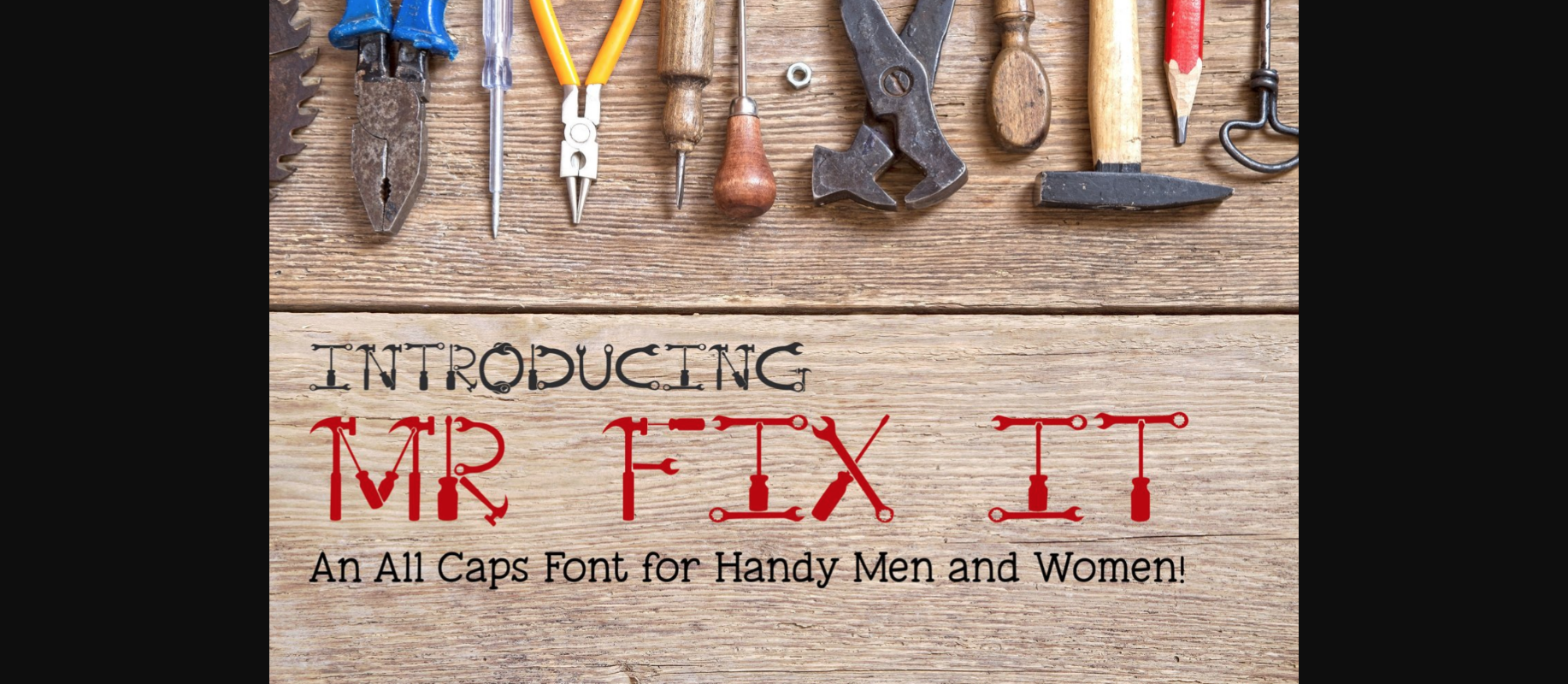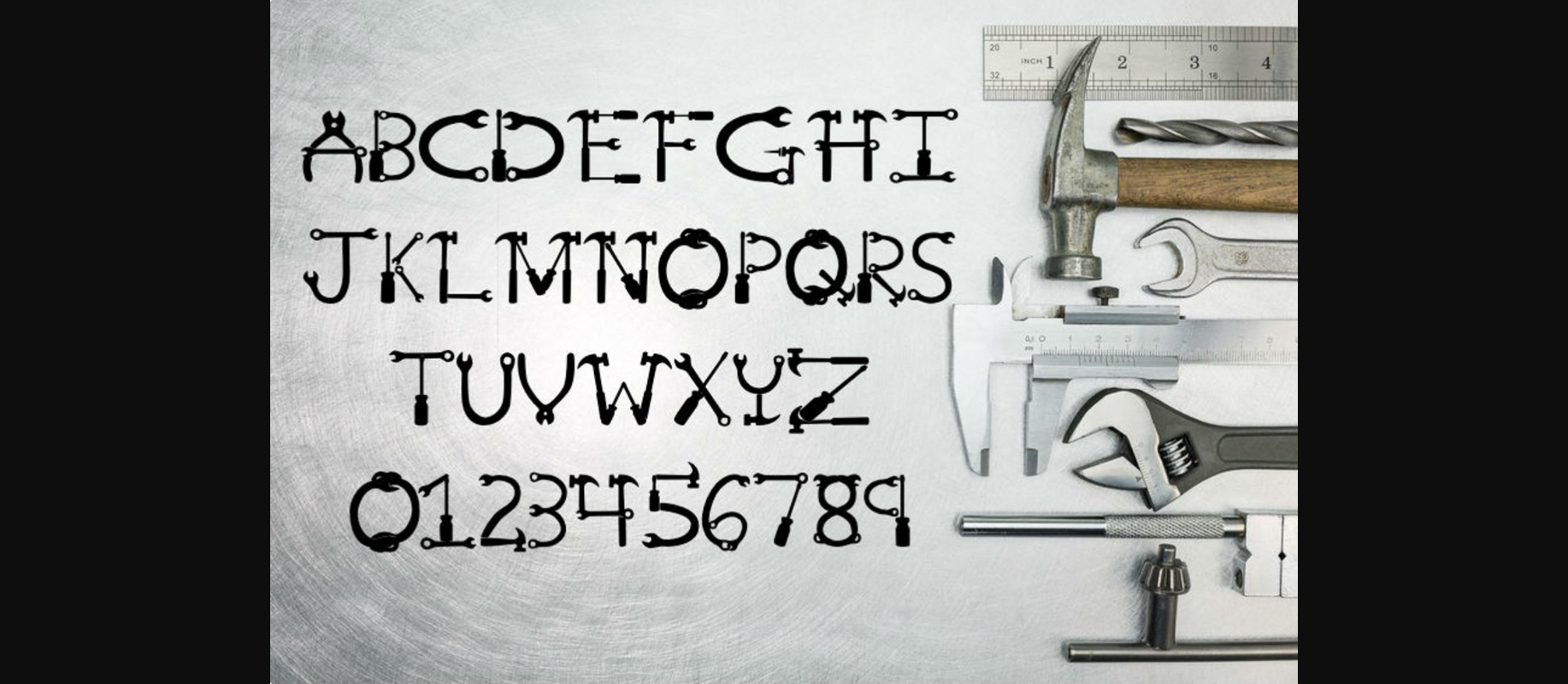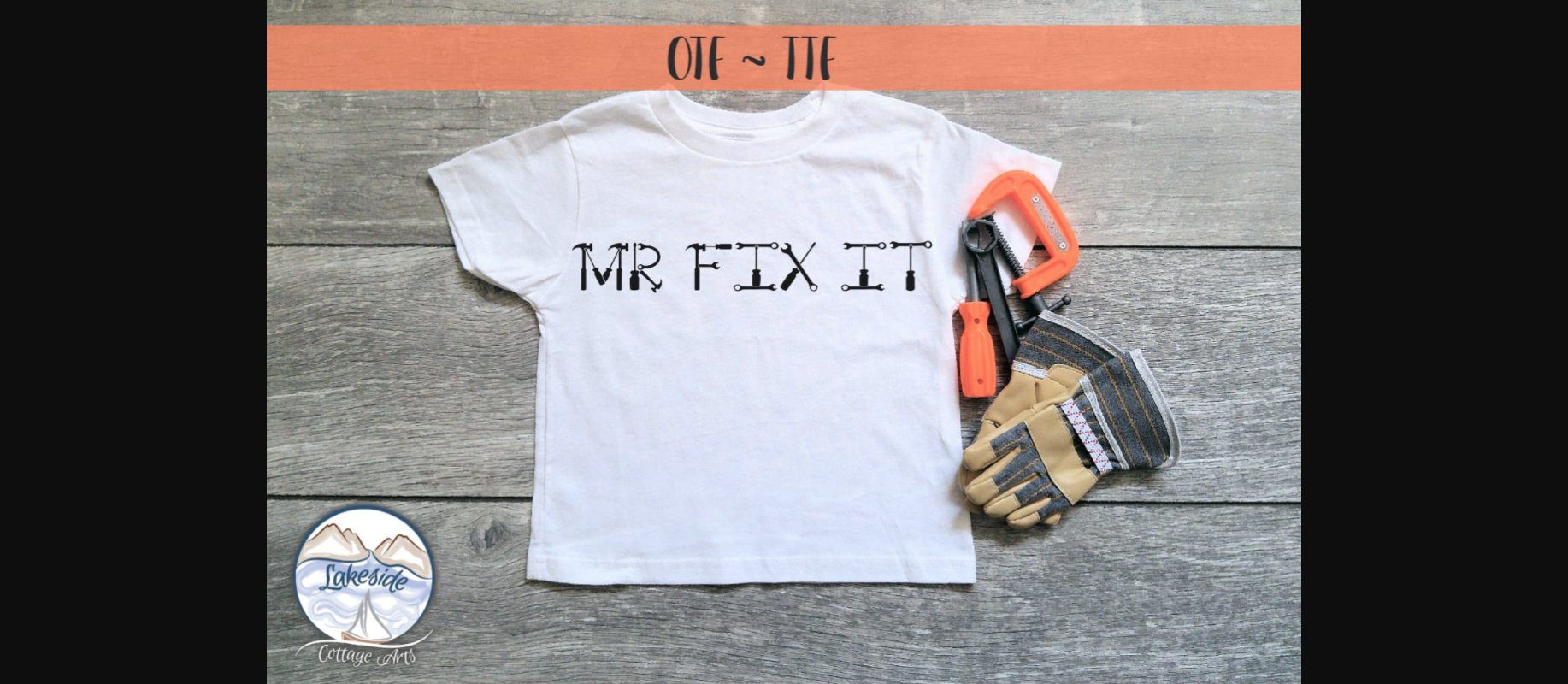
Mr. Fix It Font
About Mr. Fix It Font
Mr. Fix It – Tool Font for Handy Men and Women
A tool alphabet turned into an easy-to-use font? Yes! Created by the designer with crafters in mind, this fun, hand-drawn font features minimal nodes for a smooth cutting experience and smaller file size.